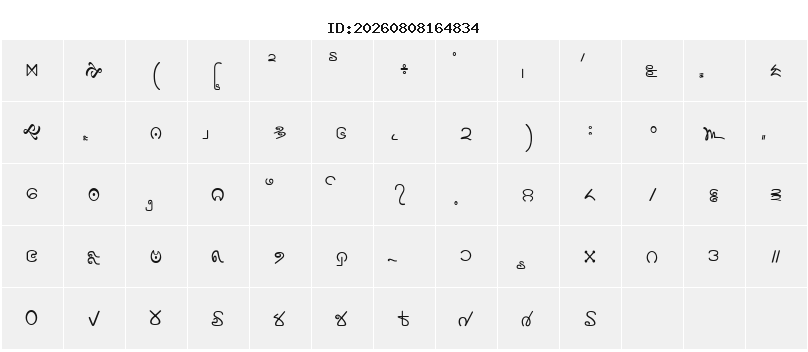
About Plone Ware Shar_Mla.ttf
Plone Ware Shar_Mla.ttf is a modern, elegant sans-serif font designed for ultimate readability and visual harmony. Perfect for branding, headlines, web design, and print materials.